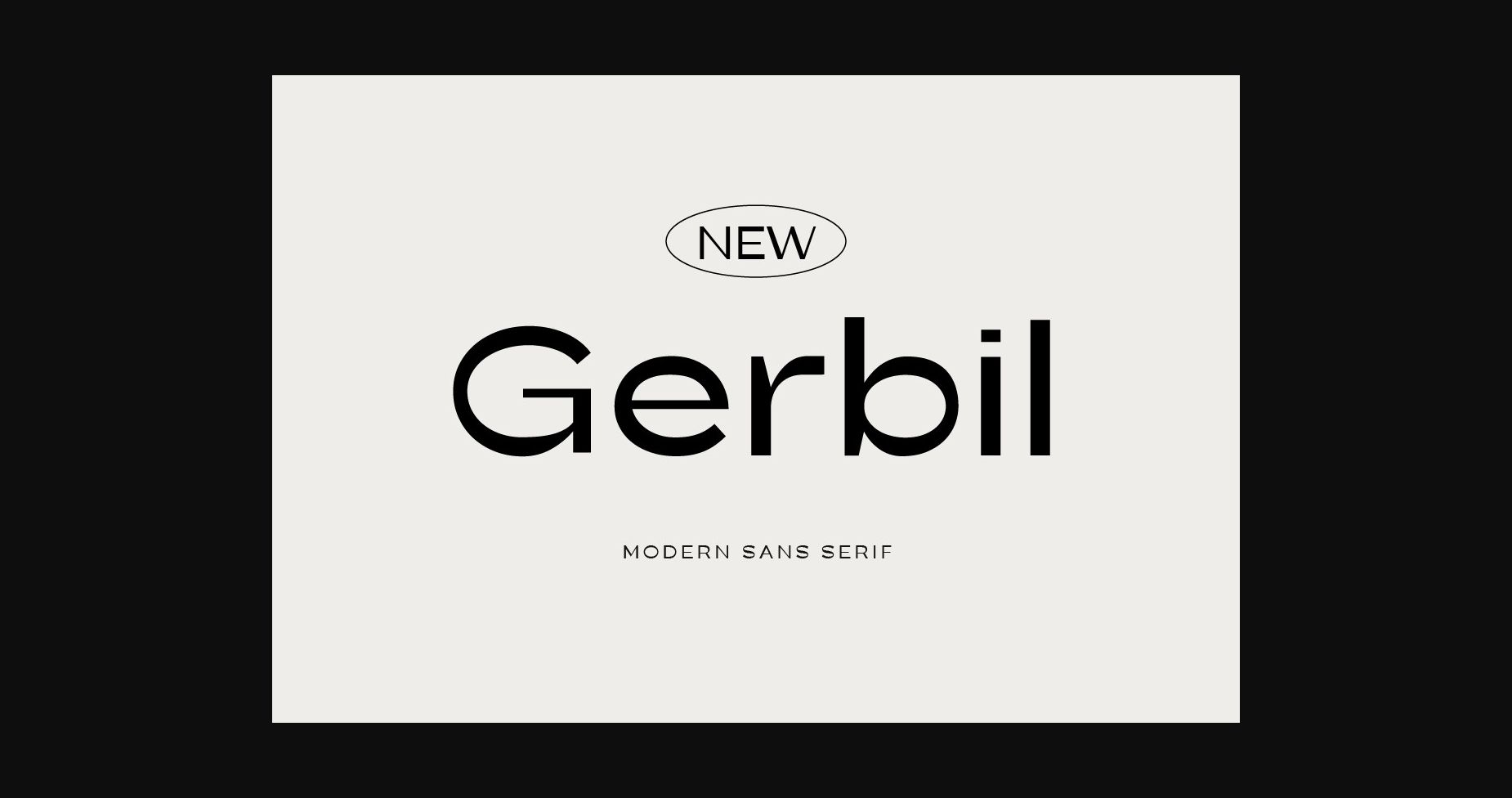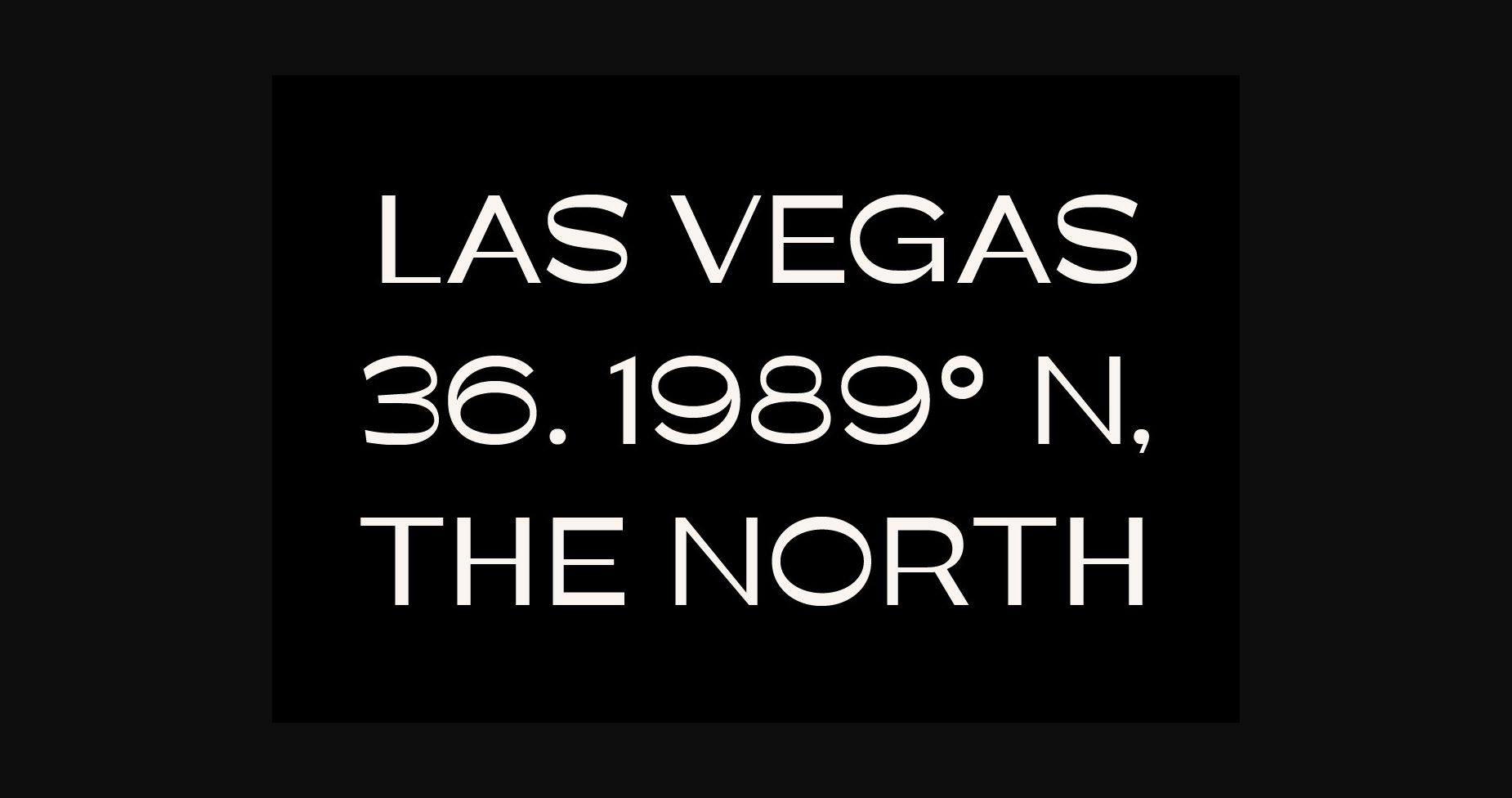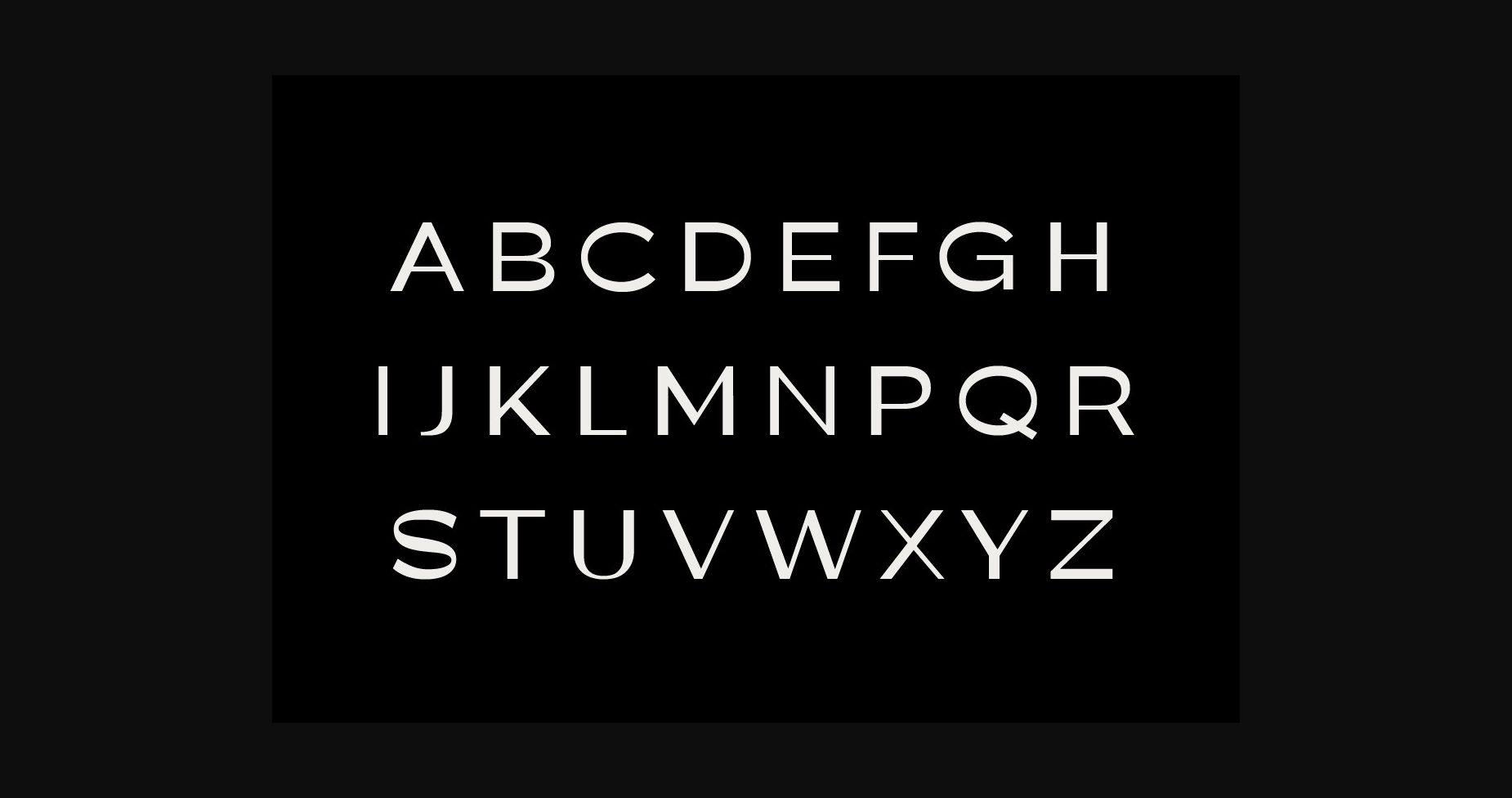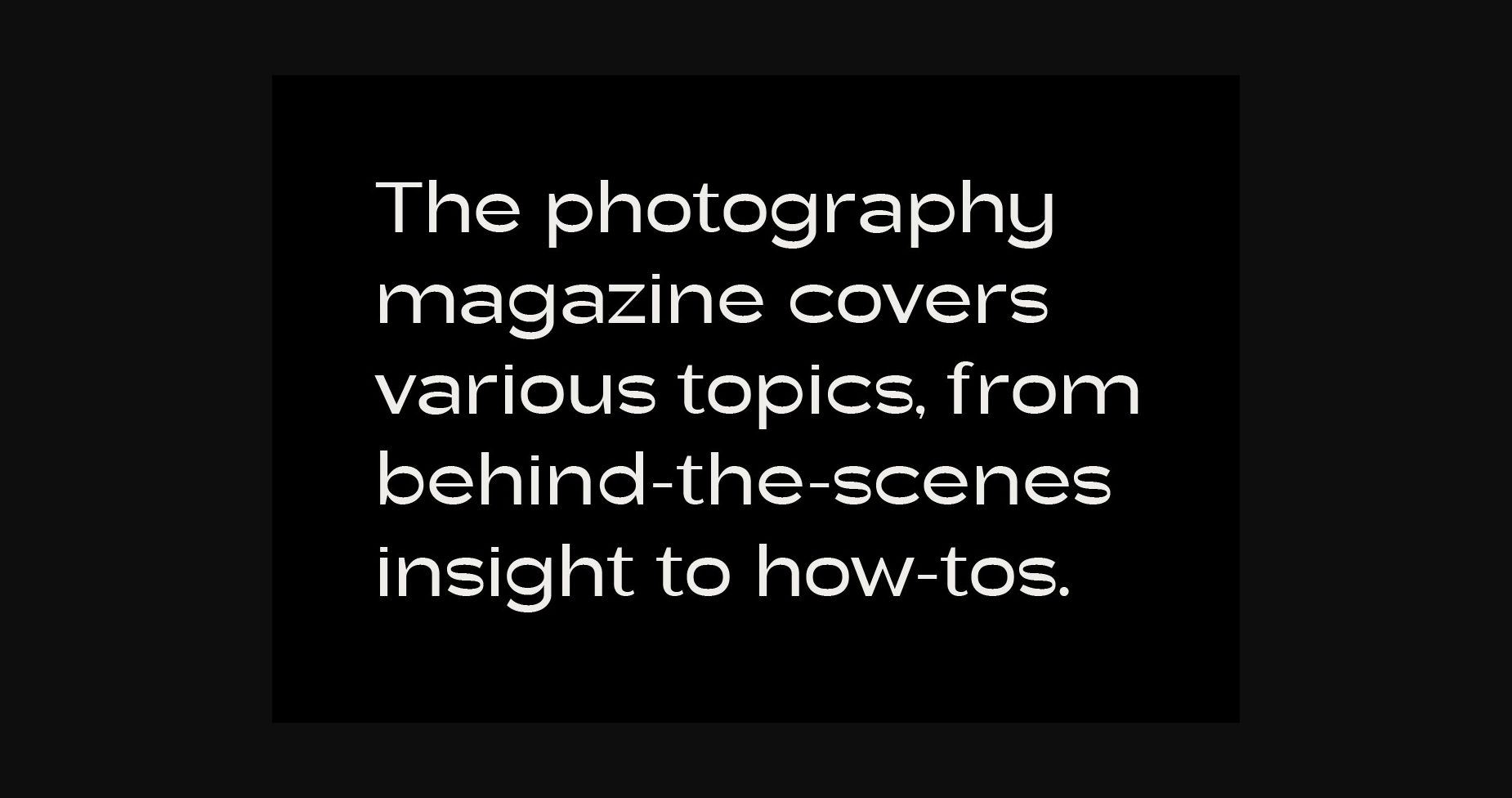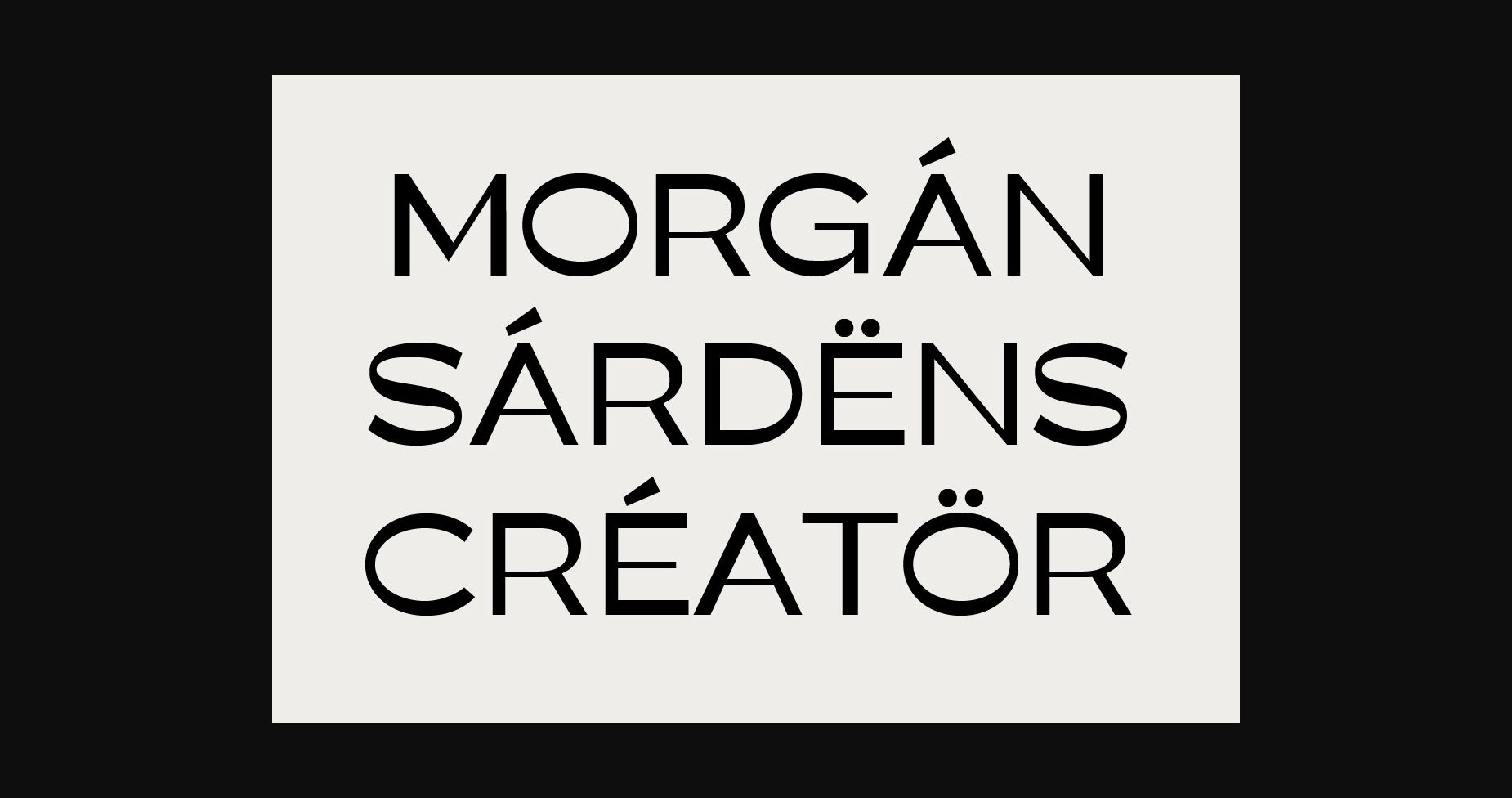
About New Gerbil Font
New Gerbil is a cool and modern sans serif font that features a sleek and minimalist design. Its clean and straightforward letters make it perfect for a wide range of applications, from branding and web design to editorial and advertising projects. The font’s simplicity and versatility make it a popular choice for contemporary designs.